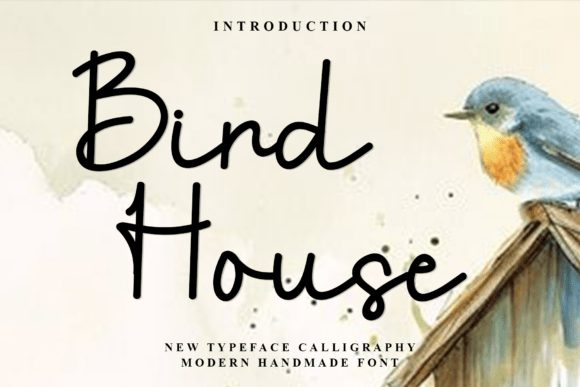
Have you ever stumbled upon the perfect font while working on a design project and felt a rush of excitement? That’s exactly what happens when you discover the Bird House Font. Its warm and friendly vibe instantly elevates any project, making it perfect for personal touches, invitations, and social media graphics.
Bird House Font is a casual, creative font that brings a relaxed and approachable feel to your designs. Its charming, hand-drawn aesthetic adds a unique touch that sets your projects apart from the rest. With its standard PUA Encoded glyphs, you can use it seamlessly in various design applications like Adobe Photoshop, Corel, Adobe Illustrator, and Canva.
Bird House Font Key Features
- Font Family: Bird House Font is a unique, hand-drawn font family with a mix of modern and vintage elements.
- Size: The font family includes 6 different font weights, ranging from Thin to Extra Bold, to cater to various design needs.
- Character Set: Includes a wide range of characters, including uppercase and lowercase letters, numbers, punctuation, and special characters.
- Unique Characteristics: Features intricate details, subtle texture, and a touch of whimsy, making it perfect for designs that require a playful, yet sophisticated look.
Bird House Font Review
I’ve had the chance to play around with the Bird House Font, and here’s my honest take.
- Unique aesthetic: The font has a distinct, whimsical feel that’s perfect for projects that need a touch of personality.
- Legibility: Despite its quirky design, the font remains easy to read, even at smaller sizes.
- Customization options: The font offers a range of weights and styles, allowing for a good deal of flexibility in terms of layout and design.
- Limited language support: The font may not include all the characters or languages you need, which could be a problem for global or multilingual projects.
- No bold weights: While the font has a range of weights, it doesn’t include any true bold options, which can make it difficult to create clear, attention-grabbing headlines.
- Not suitable for body text: The font’s design makes it better suited for titles and headings rather than large blocks of body text.
Overall, the Bird House Font is a solid choice for projects that need a unique, eye-catching look. While it has its limitations, it’s well-suited for specific applications and can add a lot of character to your designs. Just be aware of its limitations and use it thoughtfully.
Tips for Getting the Most Out of Bird House Font
Use the Bird House Font for whimsical and playful designs.
Combine with illustrations or graphics for a unique look.
Children’s book illustrations and design.
Branding and marketing materials for outdoor and nature-based businesses.